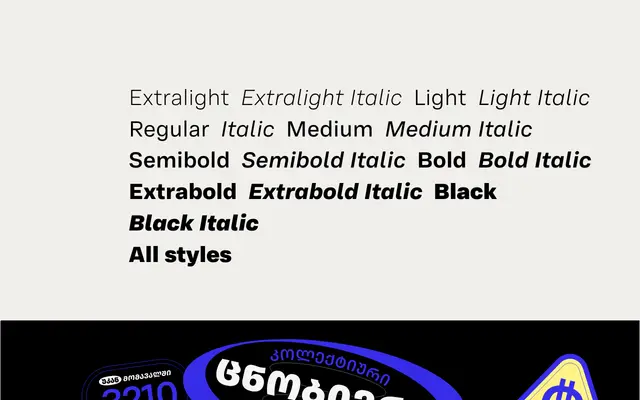
Adapter Georgian Text
A Georgian script extension of Rosetta's Adapter family by Ana Sanikidze, awarded the Grand Prize for Georgian at Granshan 2024, covering Mkhedruli and Mtavruli forms across eight weights with a variable font option.
Designed by Ana Sanikidze, this Text subfamily adapts the Adapter family's neo-grotesque modernism to the particularities of Georgian script, with longer ascenders and descenders, carefully positioned ink traps, and generous spacing tuned for continuous reading at lower resolutions. The family includes the full bicameral Georgian character set, with Mkhedruli lowercase and the Mtavruli capitals added to Unicode in 2018. A single variable font spanning weight, slant, and italic axes covers the entire range, and coverage extends to the Kartvelian languages Laz, Mingrelian, and Svan.
A neo-grotesque sans serif designed specifically for the Georgian script, adapting the modernist aesthetic of the Adapter family with script-specific proportions, ink traps, and bicameral Georgian character sets.